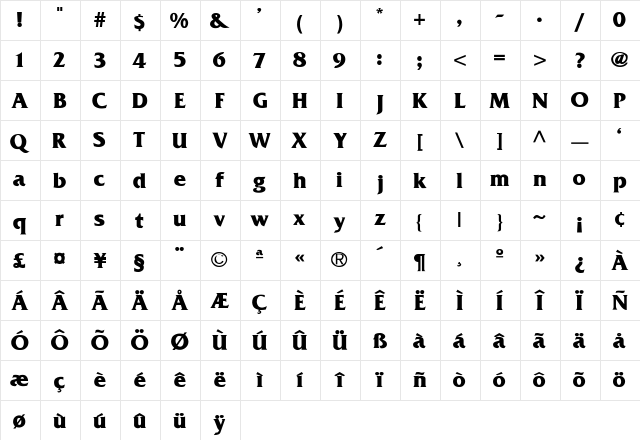
FrizQuadrata-Bold Regular Font Preview
FrizQuadrata-Bold Regular
FrizQuadrata-Bold Regular Font Details
Design Context for FrizQuadrata-Bold Typeface
FrizQuadrata-Bold is a composed and adaptable typeface that performs quietly and consistently across a wide range of design contexts. The heavy weight commands attention and anchors typographic hierarchies.